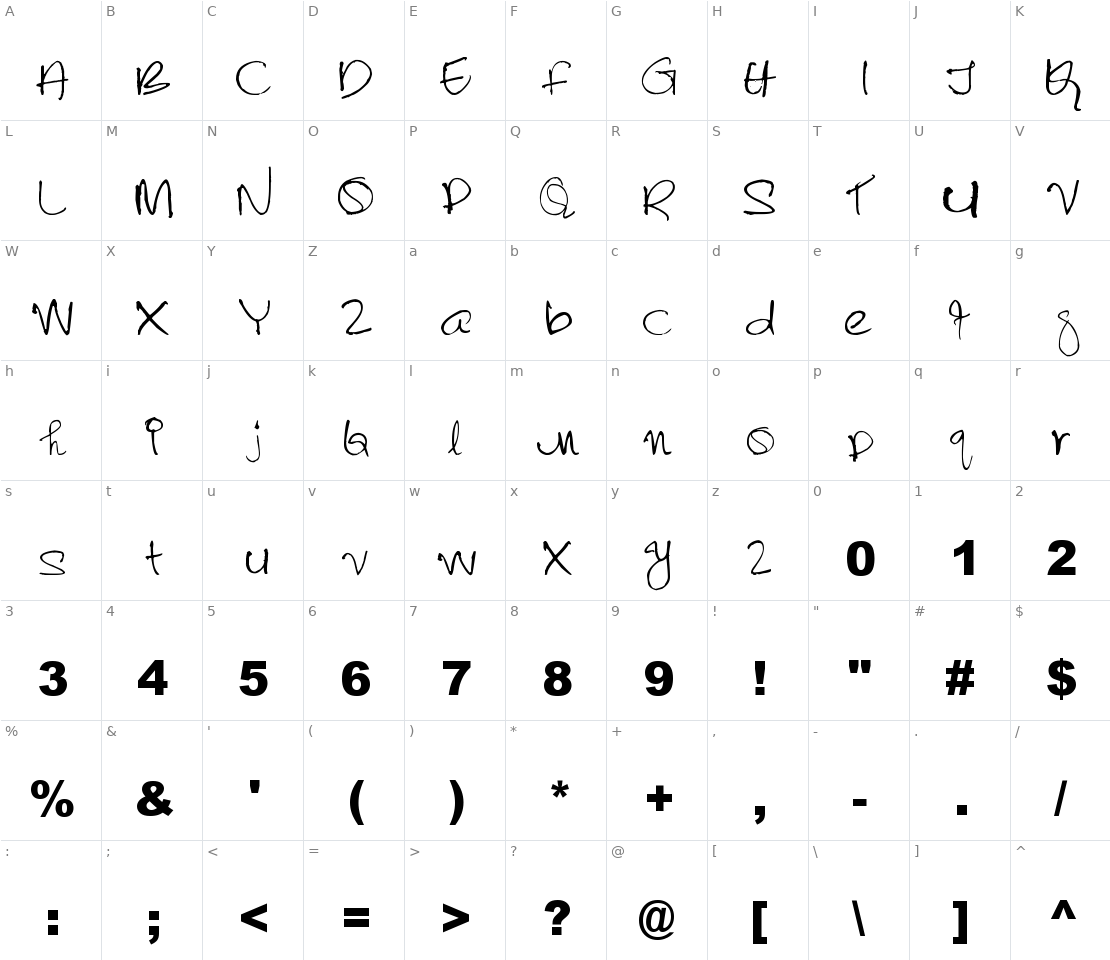
Lalithabai
Lalithabai is a thin, quirky handwritten face by Deepu Lalithabai Raj with irregular letterforms that feel genuinely personal, like notes jotted in the margins of a notebook. The strokes are light and organic, with just enough inconsistency to keep things feeling human rather than templated. A good fit for personal branding, informal invitations, or anywhere you want type that reads as casual and unforced.